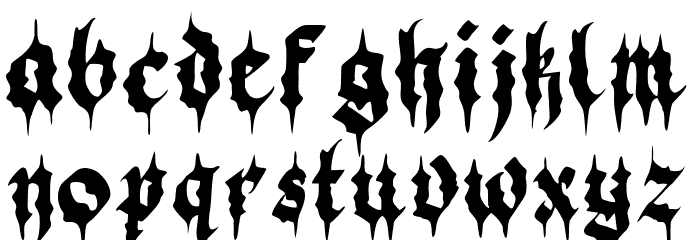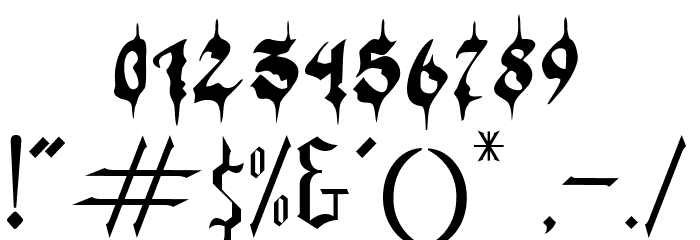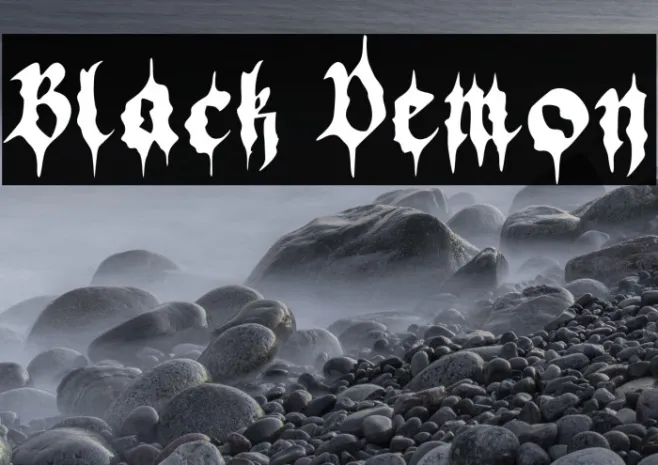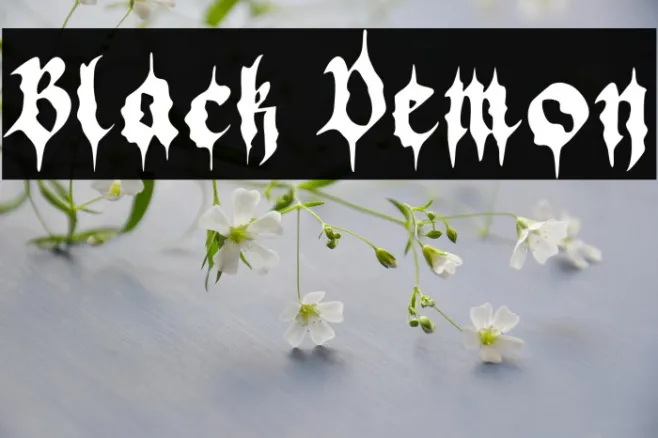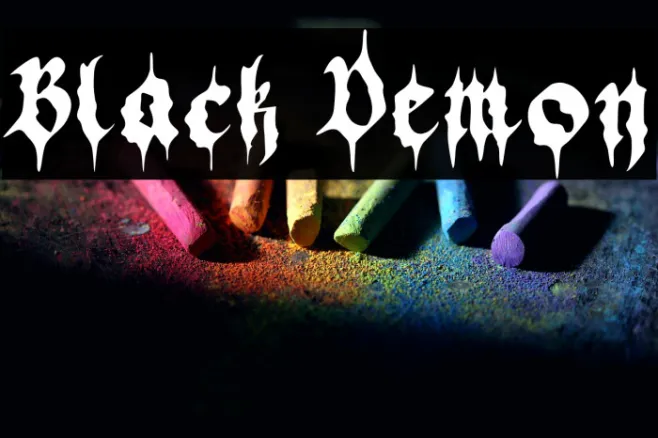
Black Demon Font
This font features a striking and bold design with sharp, pointed edges and a gothic aesthetic. The characters are intricately crafted, giving off a dark and mysterious vibe. The uppercase and lowercase letters maintain a consistent style, with exaggerated serifs and a medieval flair. The numbers and special characters follow the same theme, making the font cohesive and visually impactful. Its unique style is reminiscent of ancient scripts and is perfect for creating an intense and dramatic atmosphere.
A bold, gothic font with sharp, pointed edges and a medieval aesthetic.
- Proposed Projects: Ideal for horror-themed designs, gothic posters, album covers, and Halloween invitations.
- Overall Style: Gothic, Medieval, Decorative
- Use Case: Logos, Posters, Themed Events